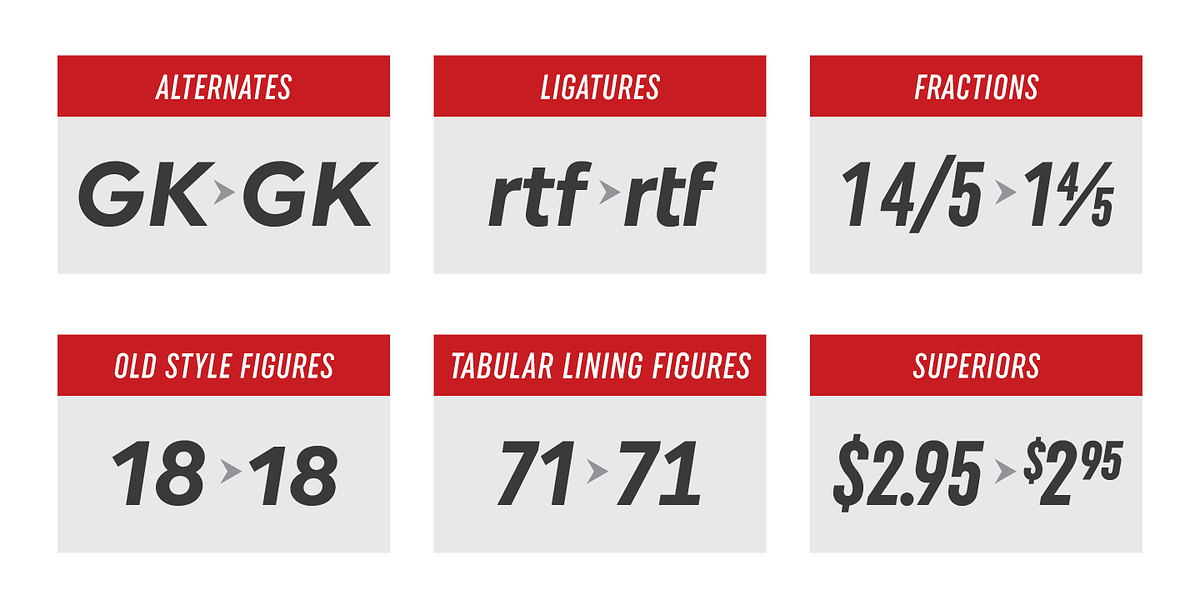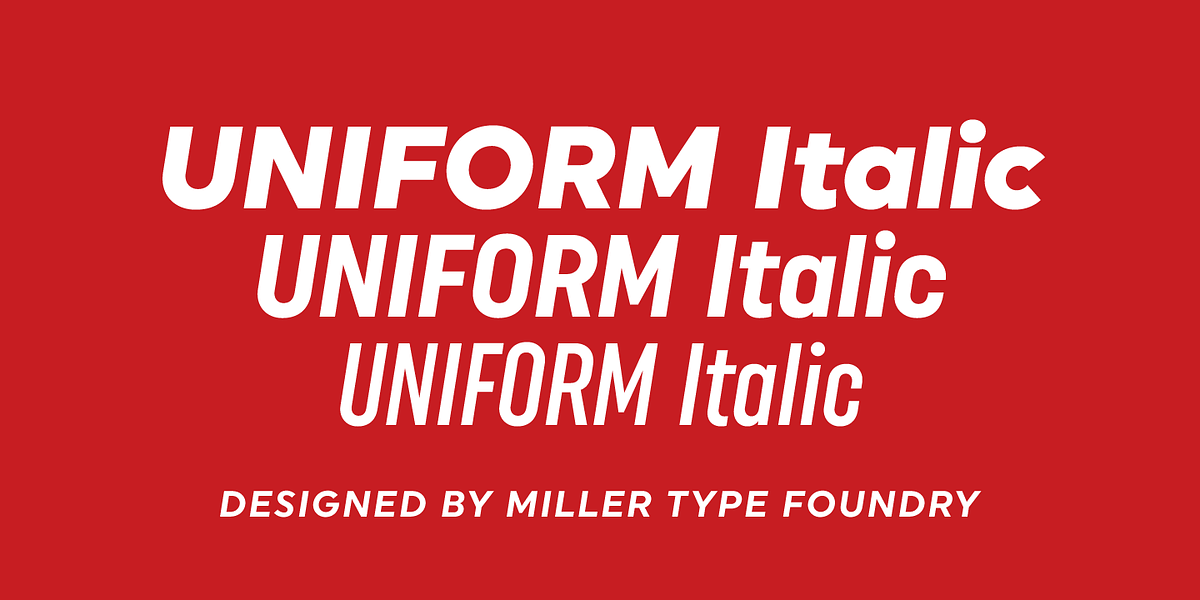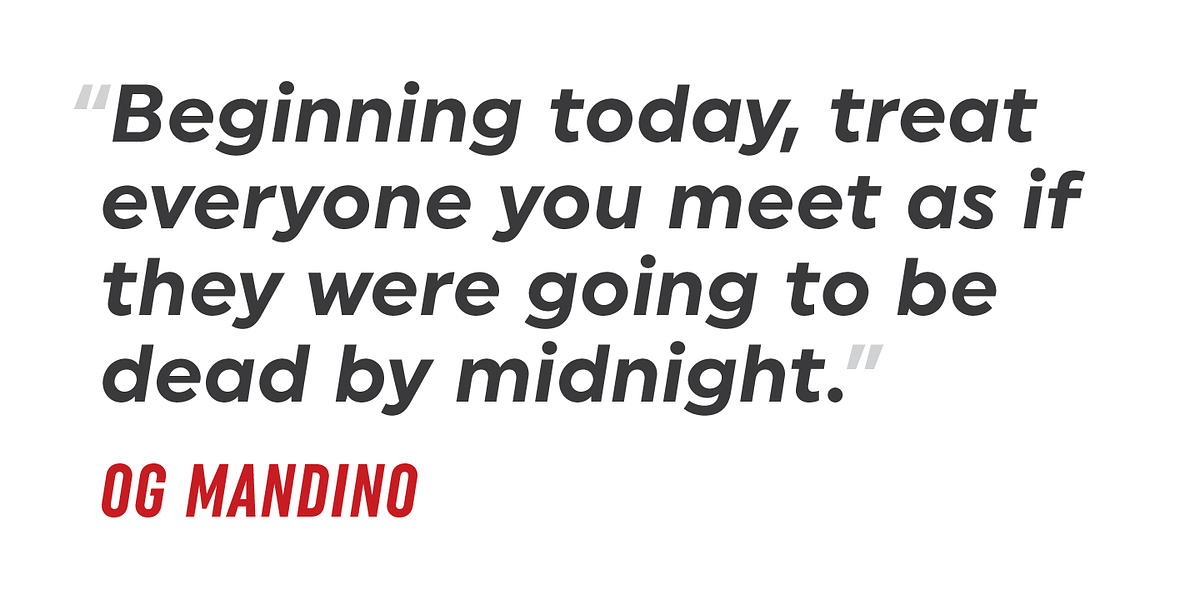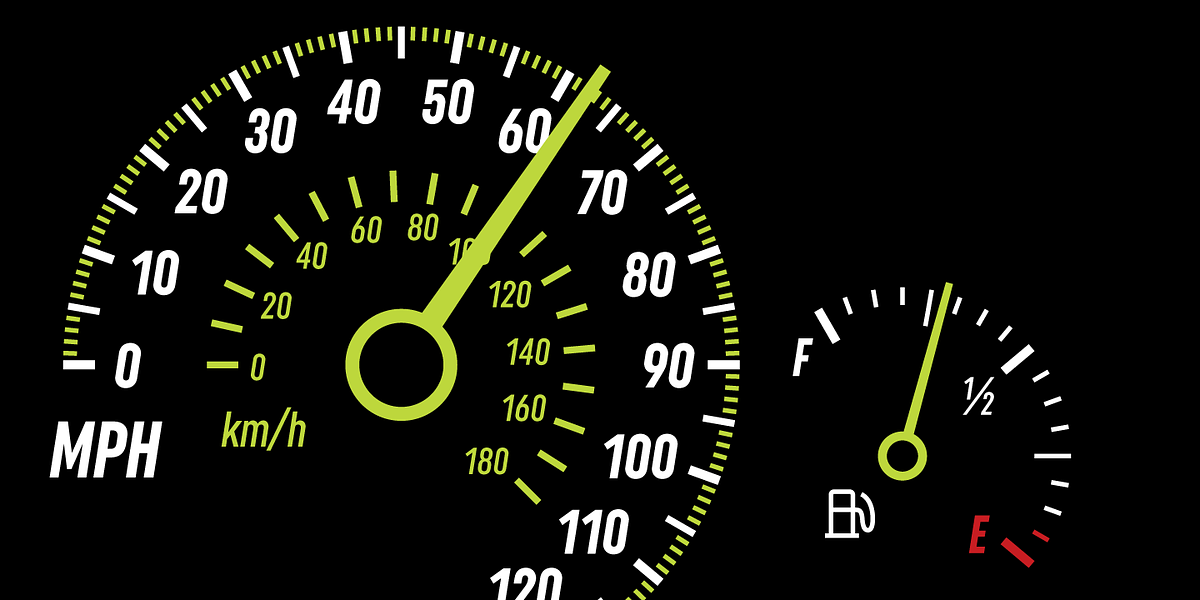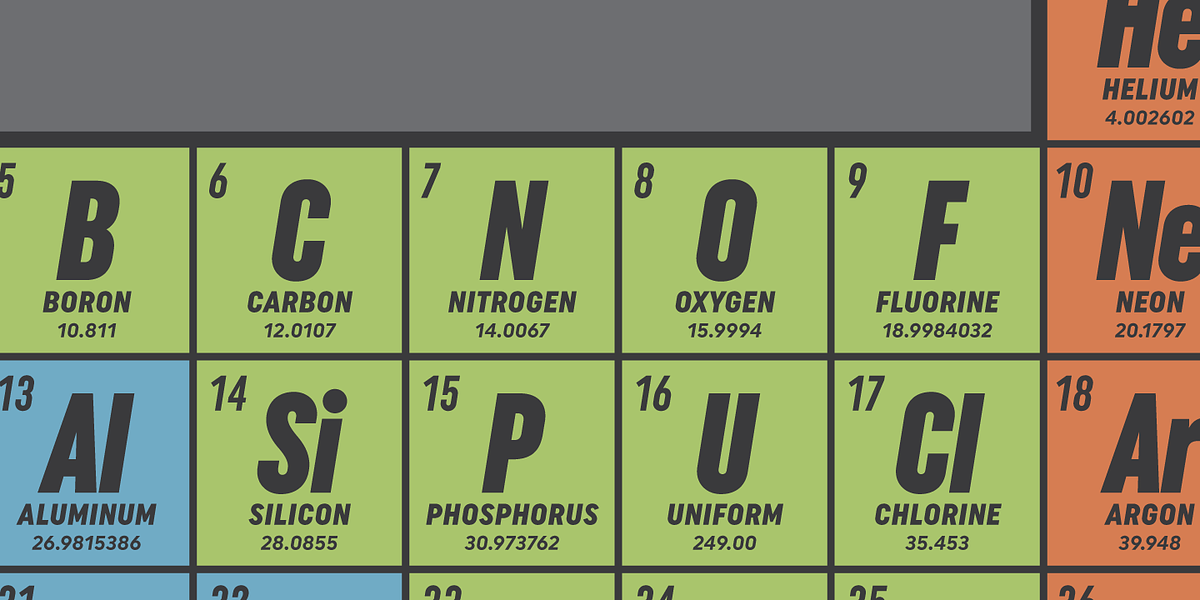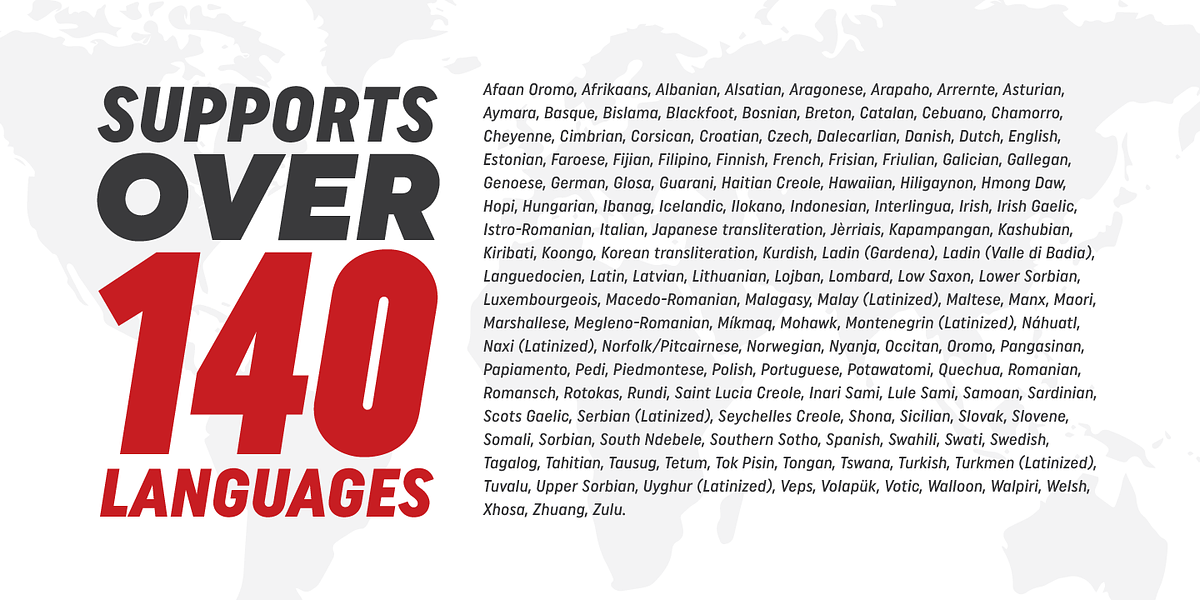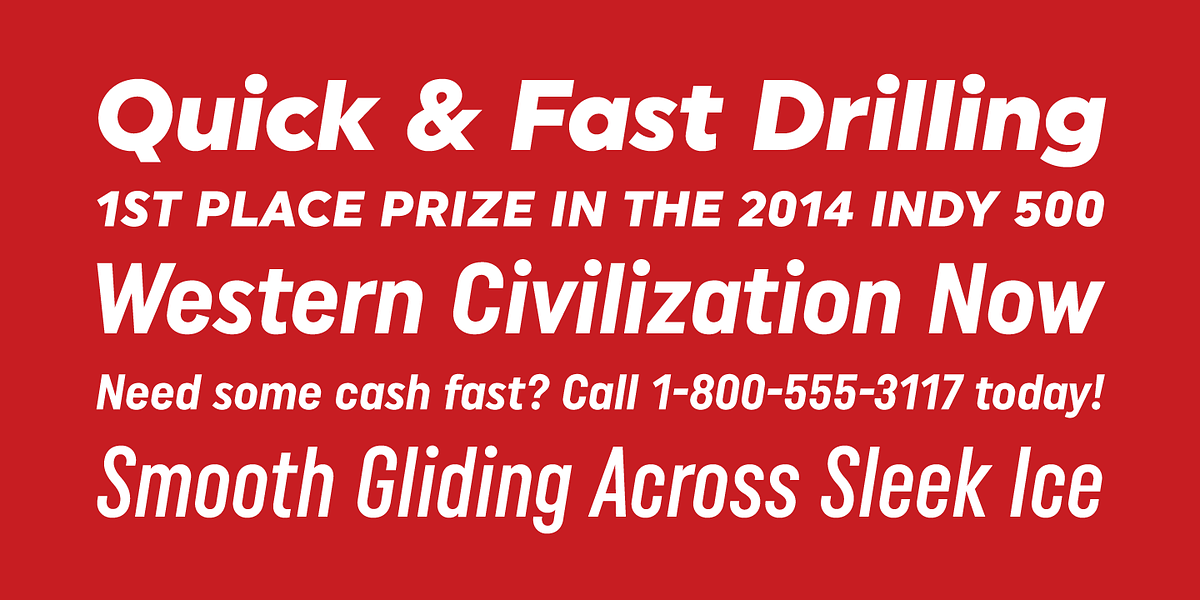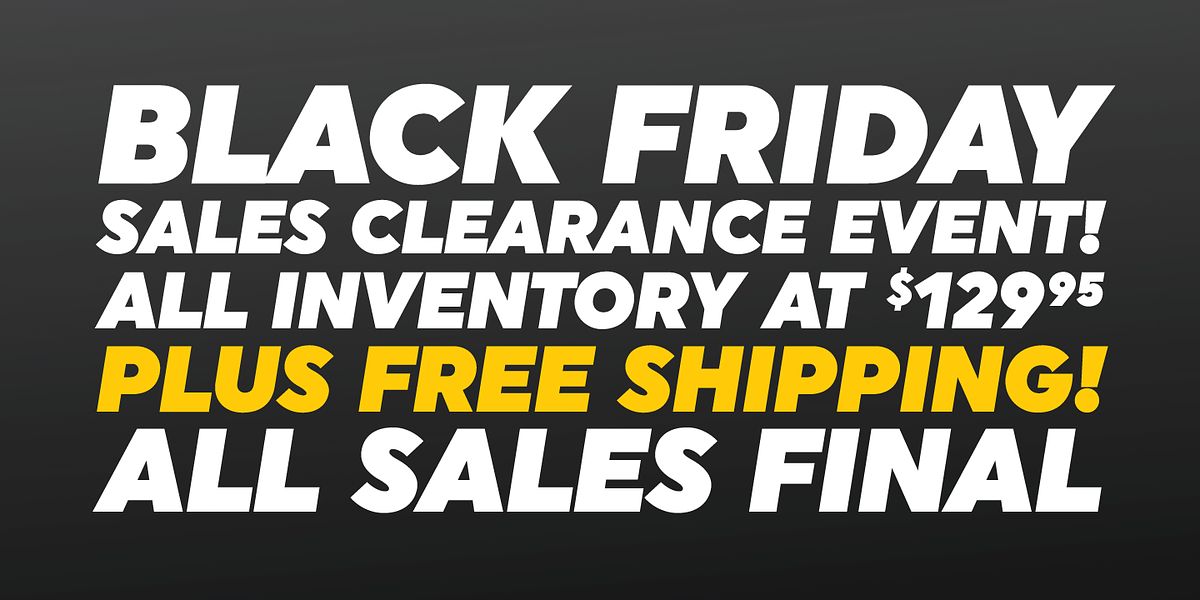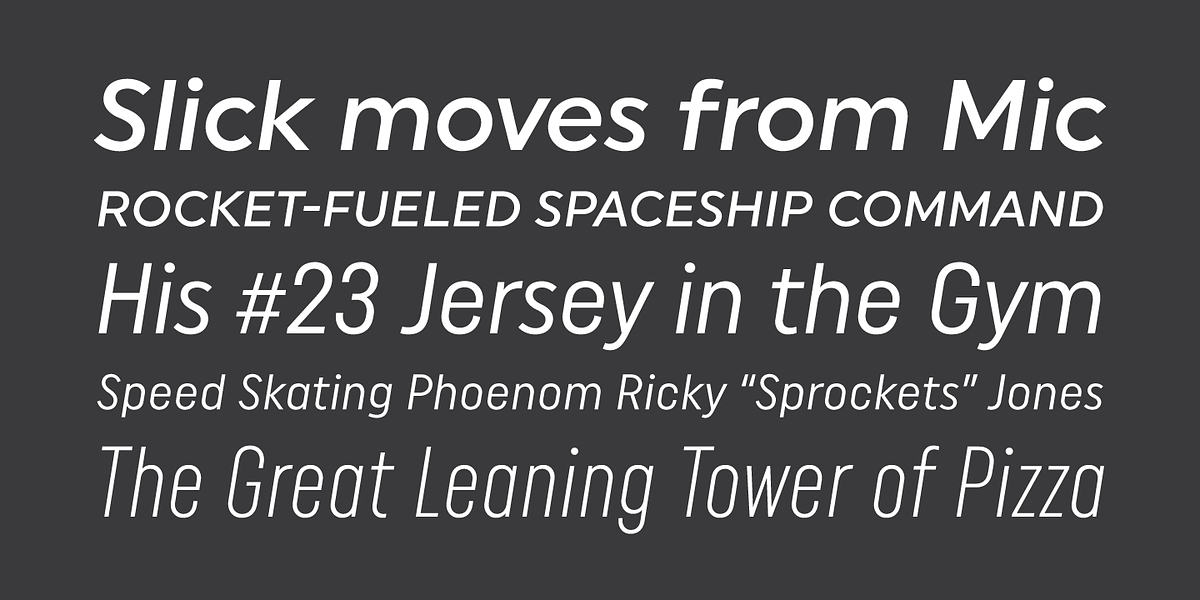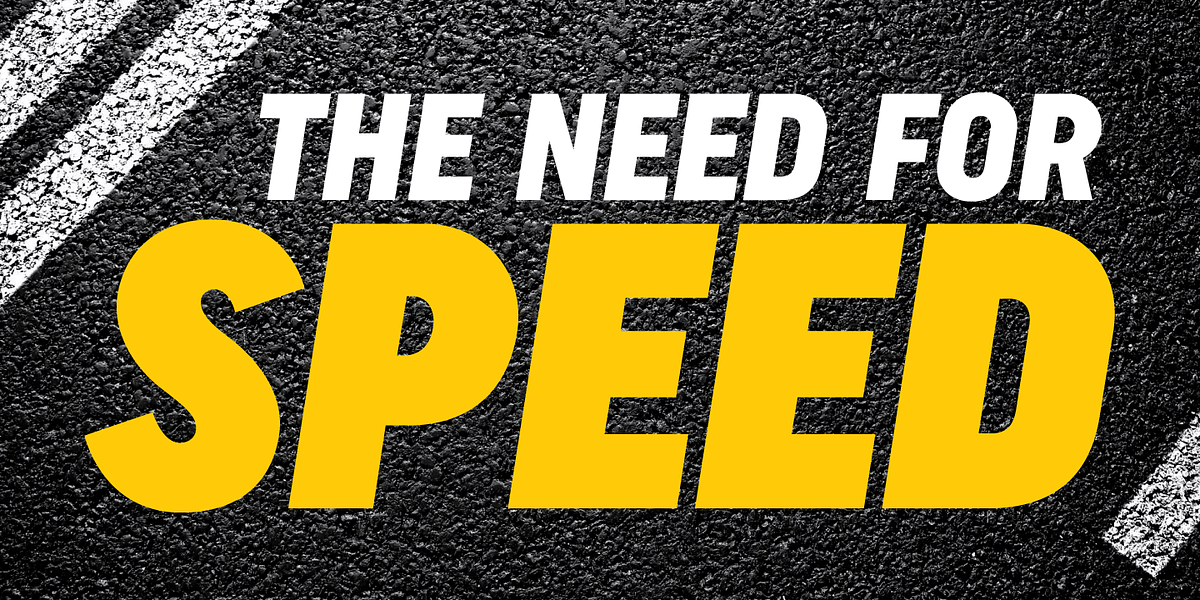
Uniform Italic
Uniform is a multi-width geometric sans-serif typeface characterized by its unique construction. Each width (regular, condensed, and extra-condensed) is based on the circle, with character forms derived from stacked circles. This approach results in a remarkably fresh aesthetic that blends circularity with straight-sided geometry. The font family offers a range of weights, ensuring readability for both headlines and body text. Its versatility makes it suitable for various applications, including branding, web design, book covers, and signage.